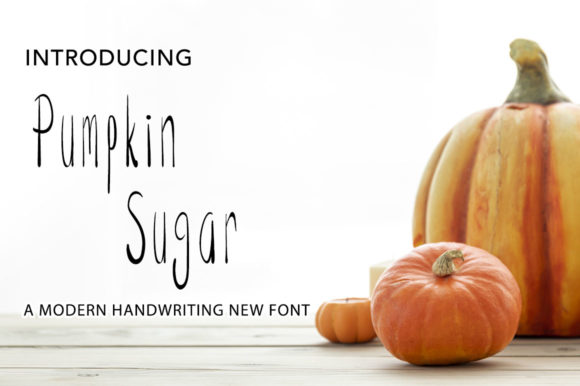
Step inside the realm of Pumpkin Sugar, where your brand's message bursts into life with an enchanting handwritten dance. Each stroke of this modern script breathes an air of sophistication, effortlessly transforming your designs into captivating masterpieces.
Unleash your creativity with Pumpkin Sugar, meticulously crafted to elevate your business signage to new heights. Its flowing charm invites customers in, promising a warm and welcoming experience. Let your brand's voice soar with Pumpkin Sugar, a testament to the power of a captivating script.
Don't let your designs settle for ordinary - embrace the allure of Pumpkin Sugar. Its unique character will weave a spell on your audience, leaving a lasting impression that sets your brand apart. Immerse yourself in the world of Pumpkin Sugar, where elegance meets innovation, and witness the birth of unforgettable designs.